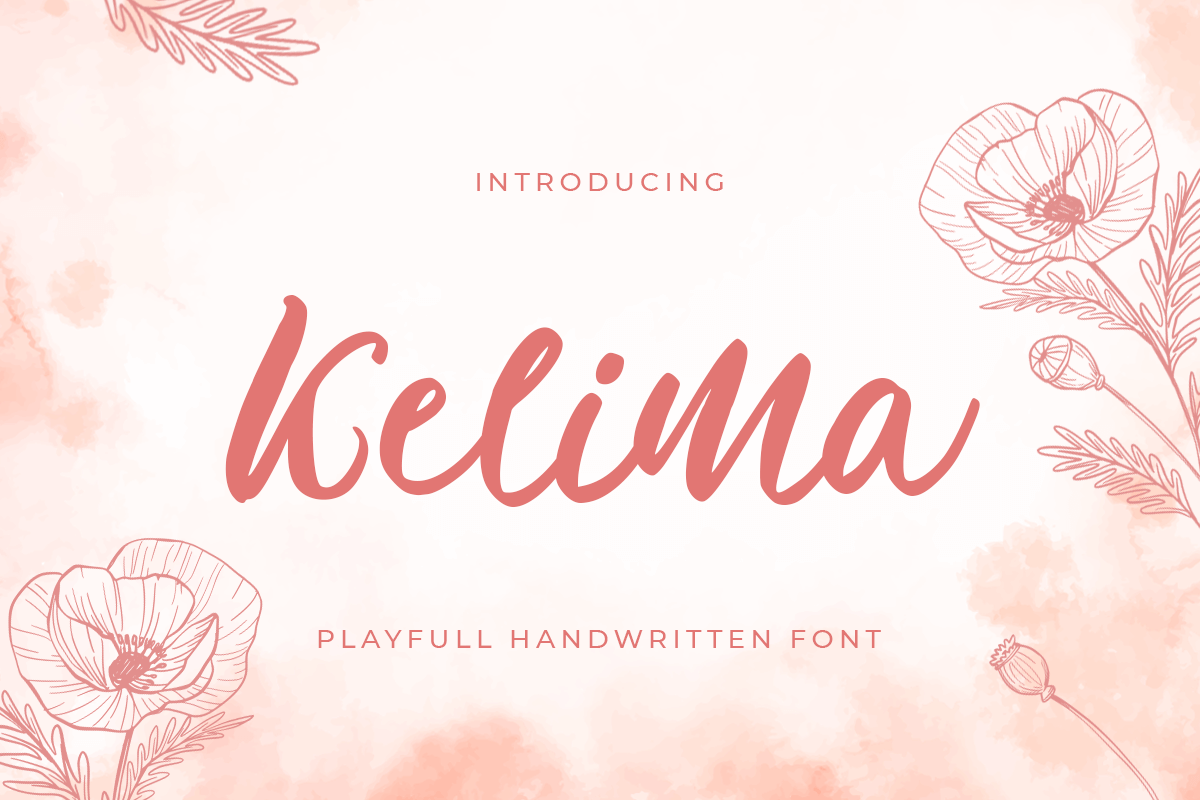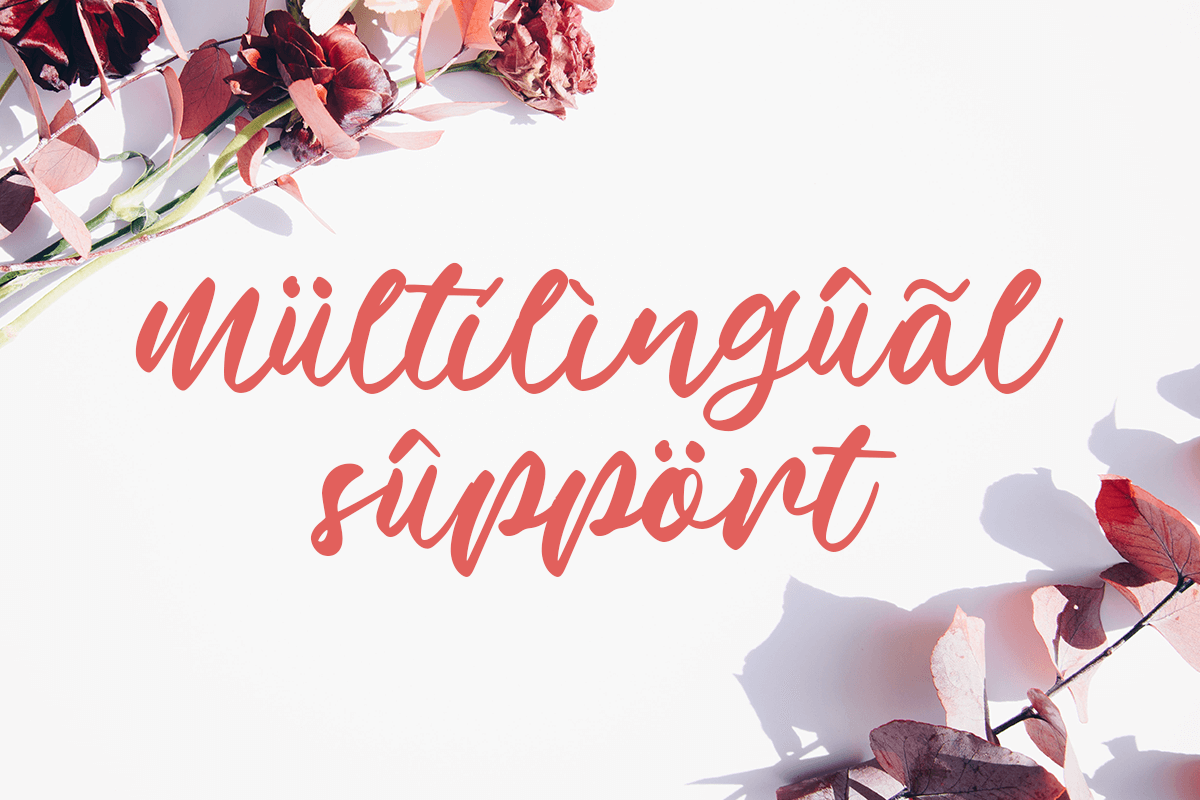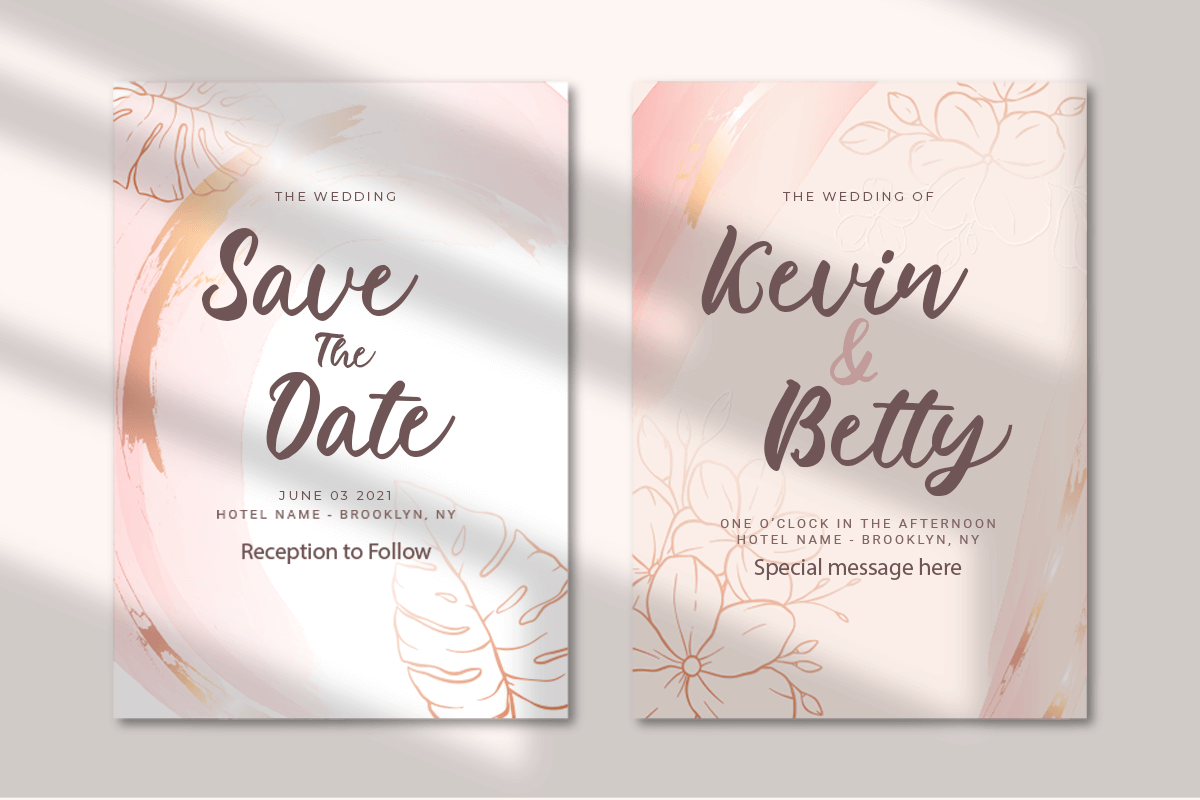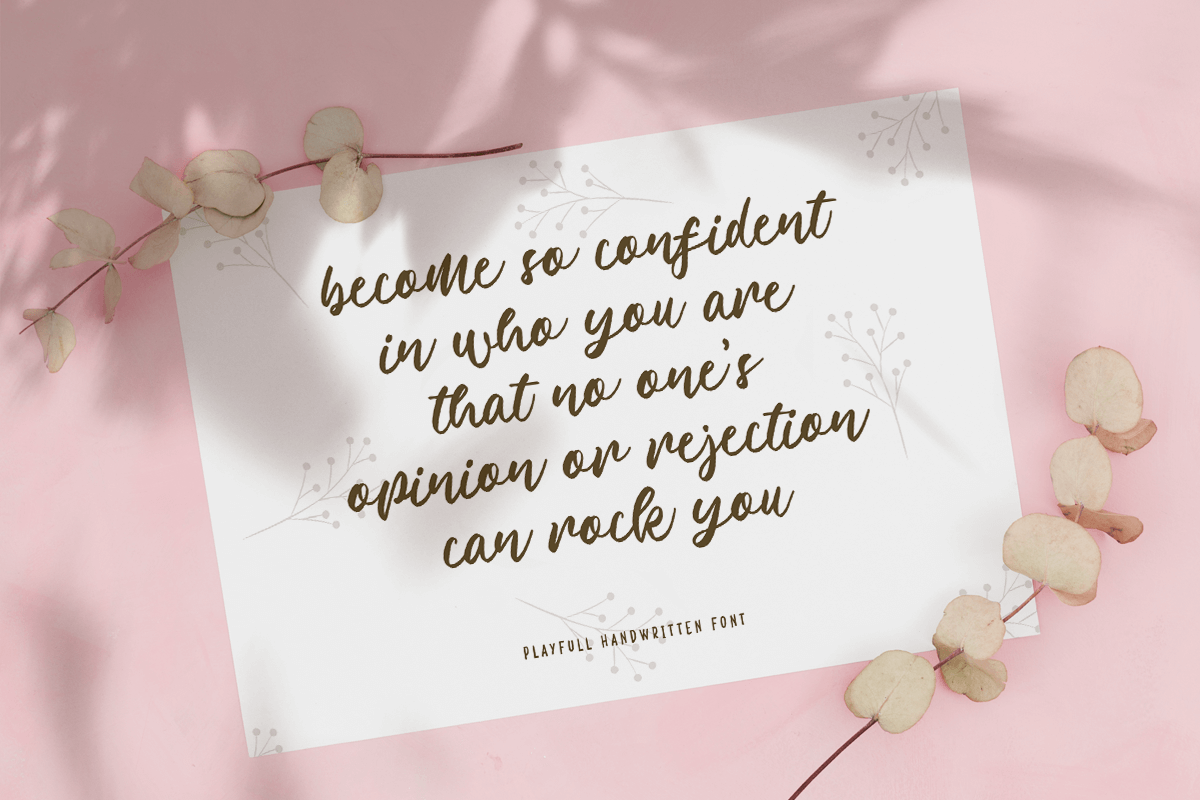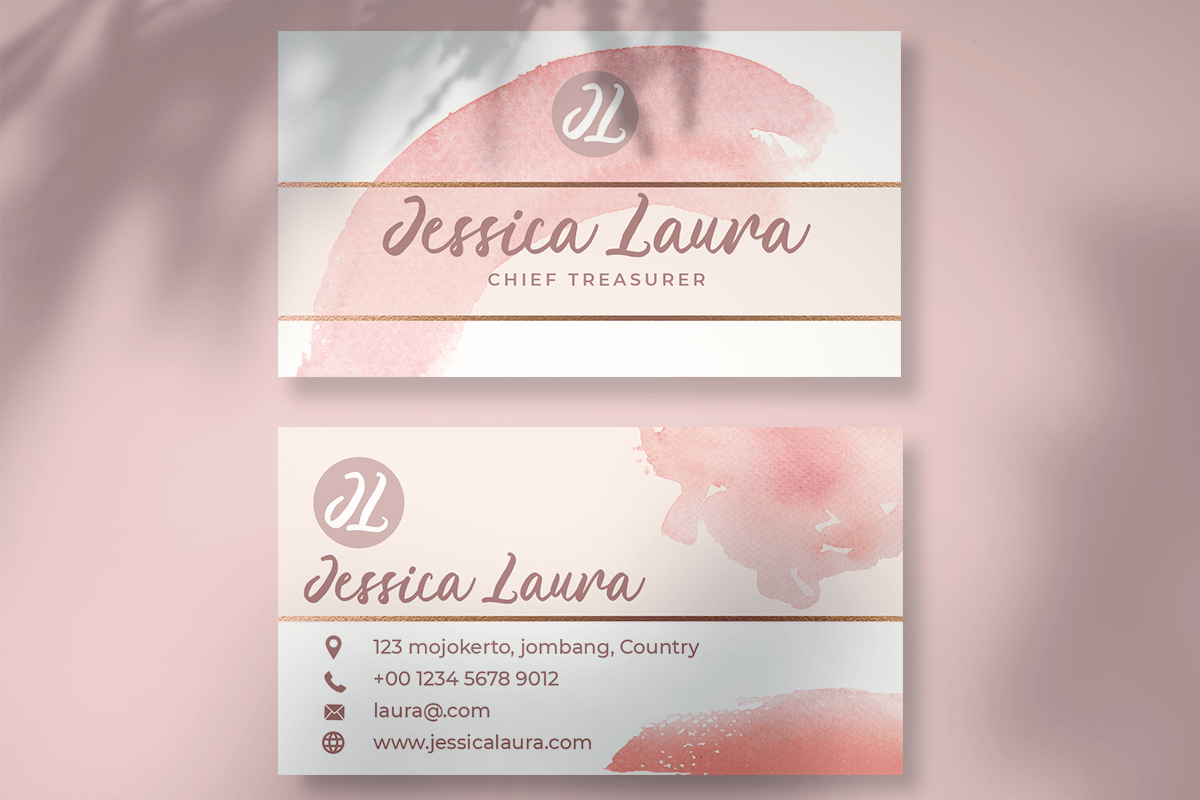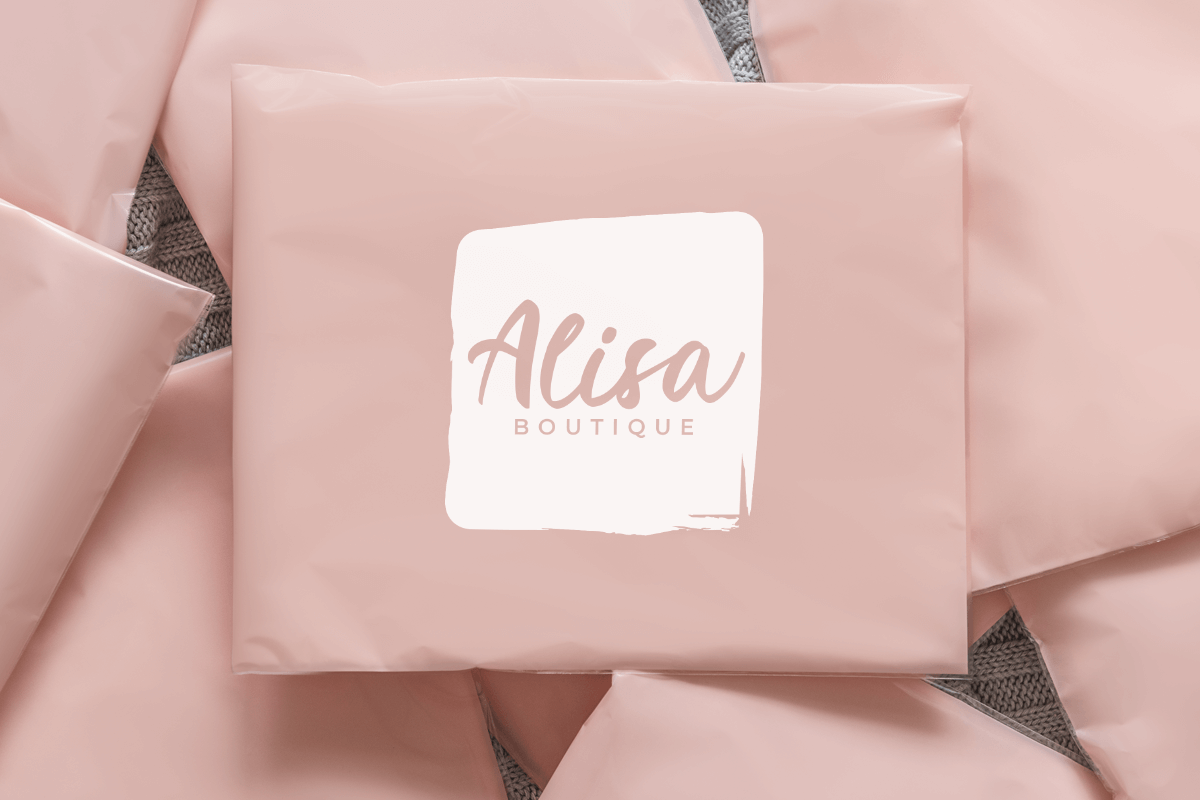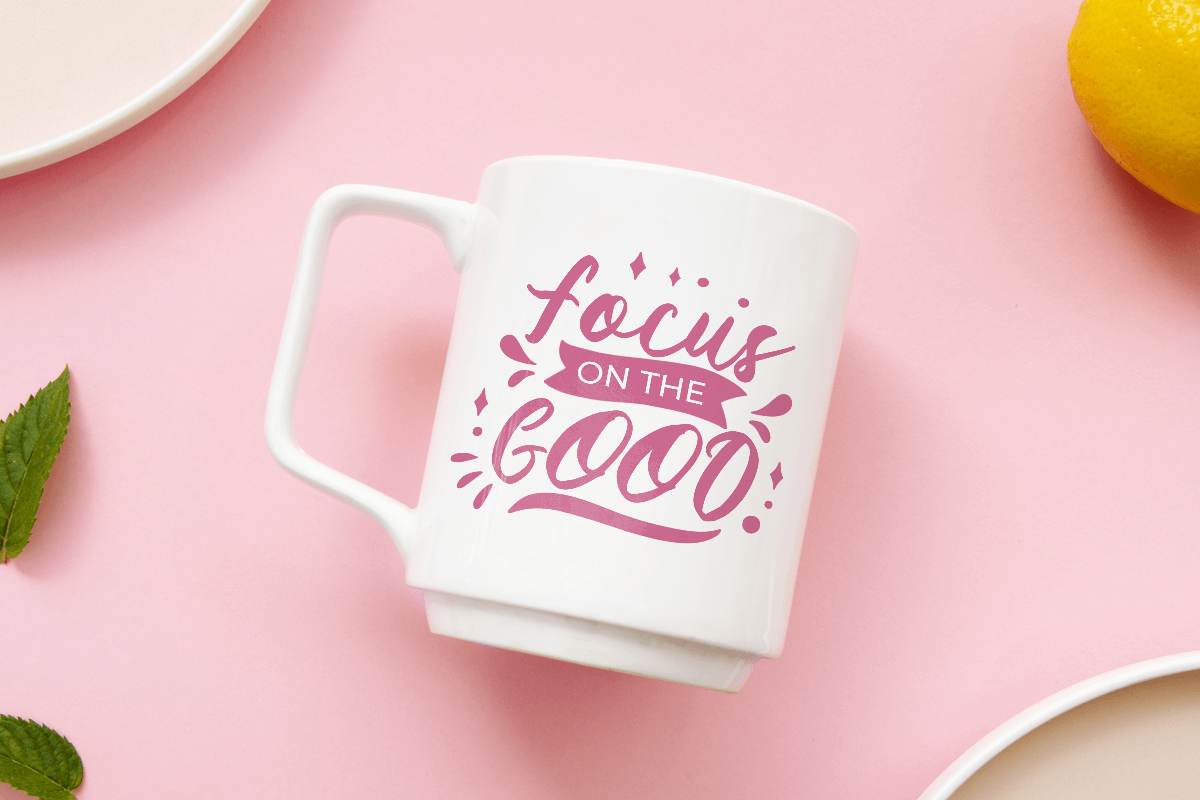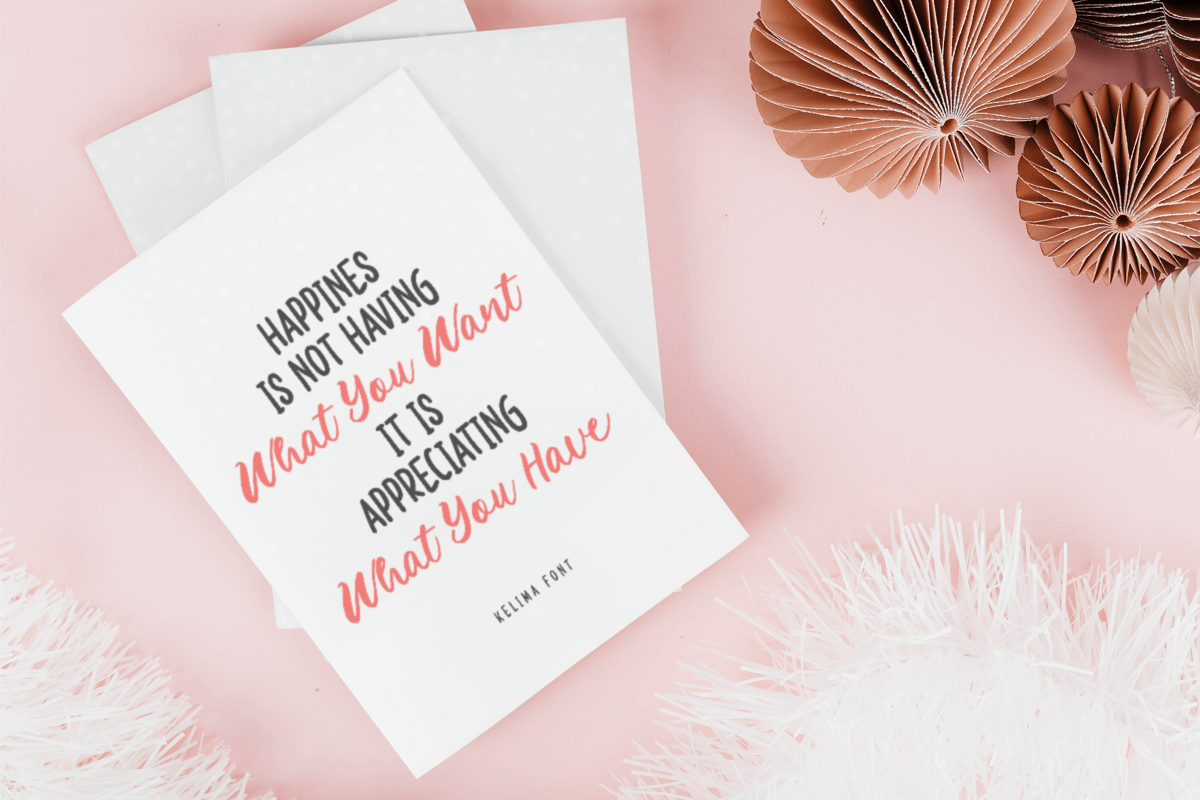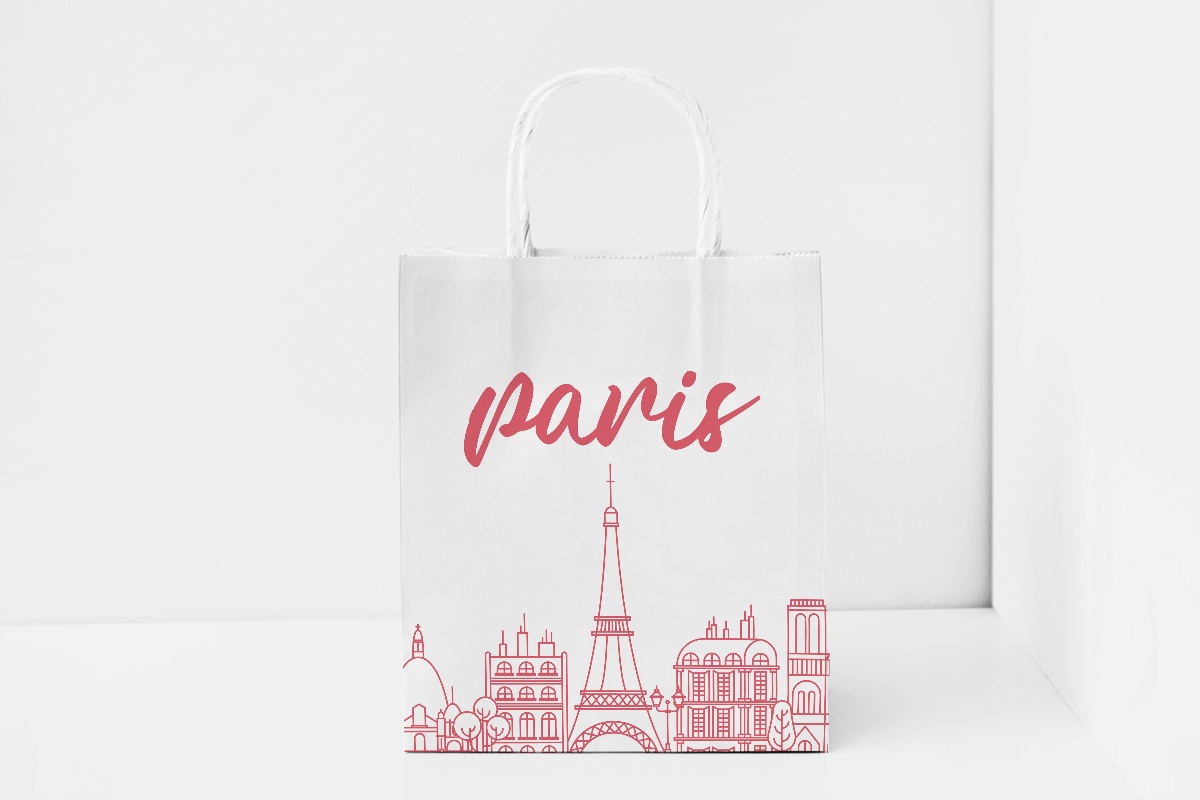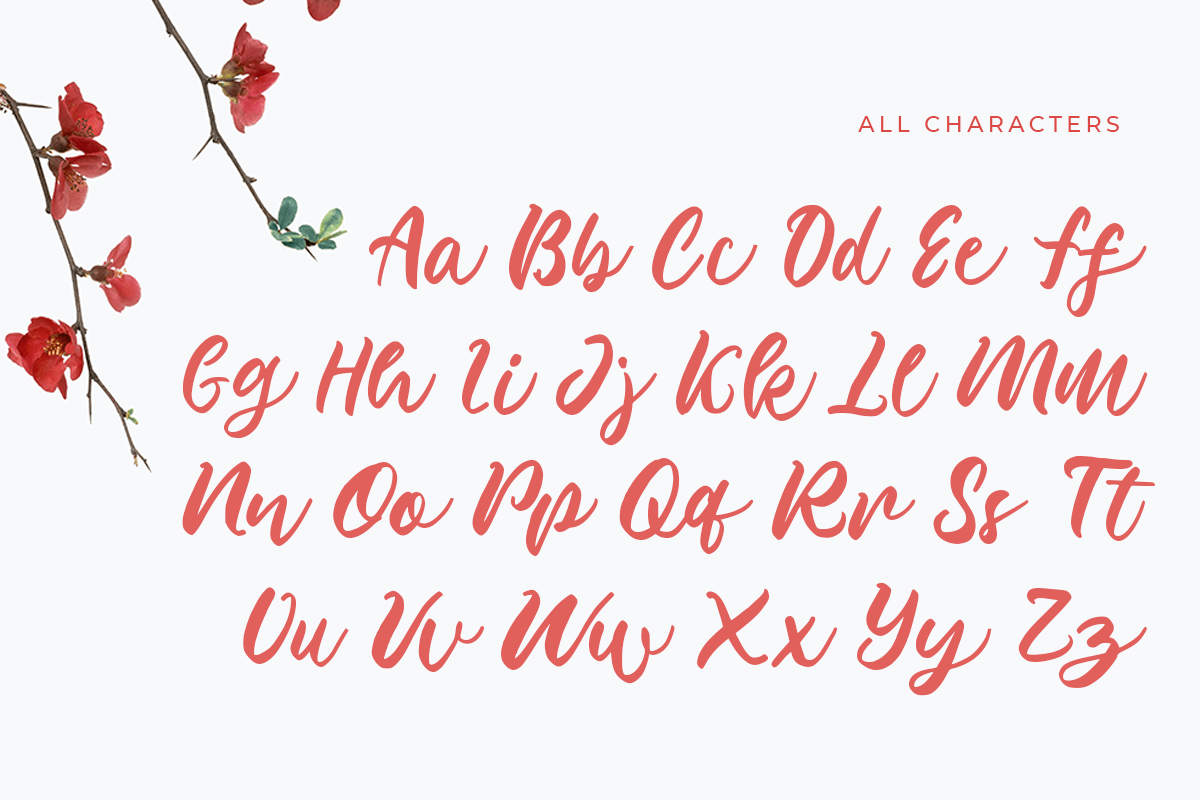
Kelima
-Playful Handwritten Font
Kelima
Kelima is A Modern Playful Handwritten font with nice and modern style and so beautiful. This font specially crafted for your project design or professional logo, modern for any designs such as product, merchandise, and so many more with easy to use but unique results are so professional.
Enjoy to Design any your needs with cute, cheerful, and charming feel.